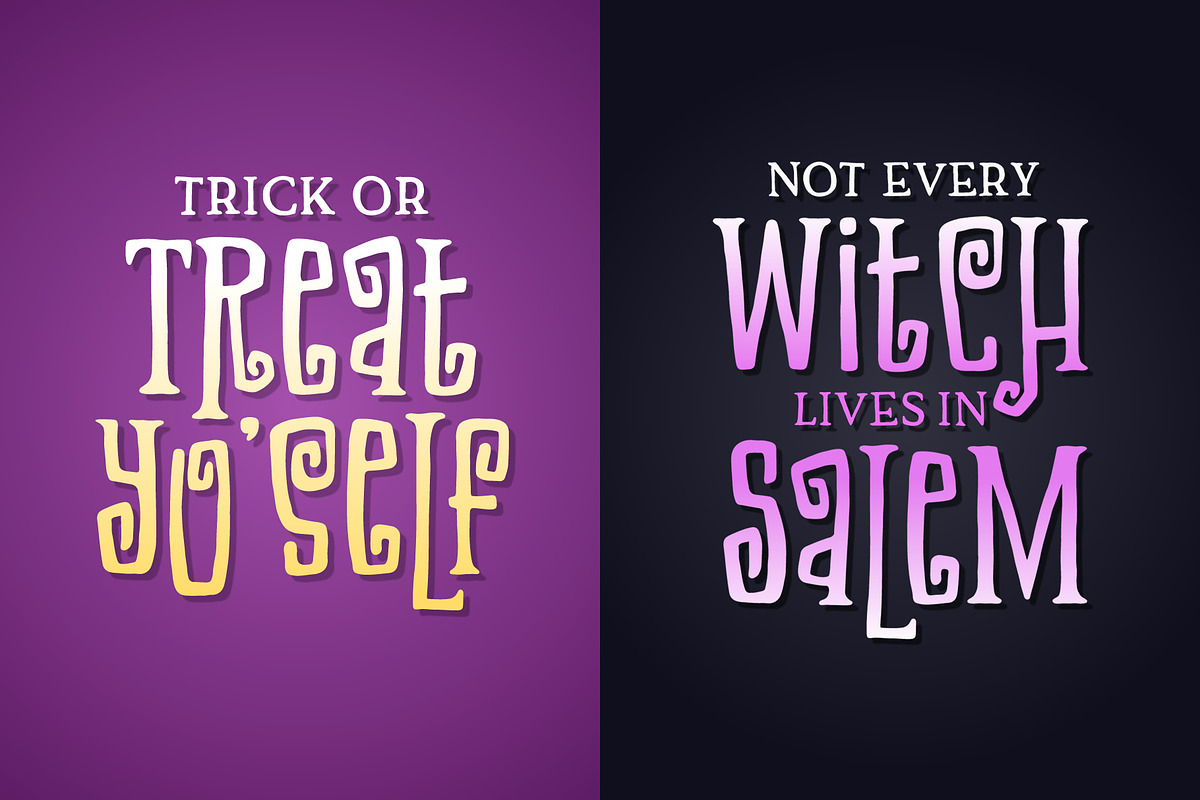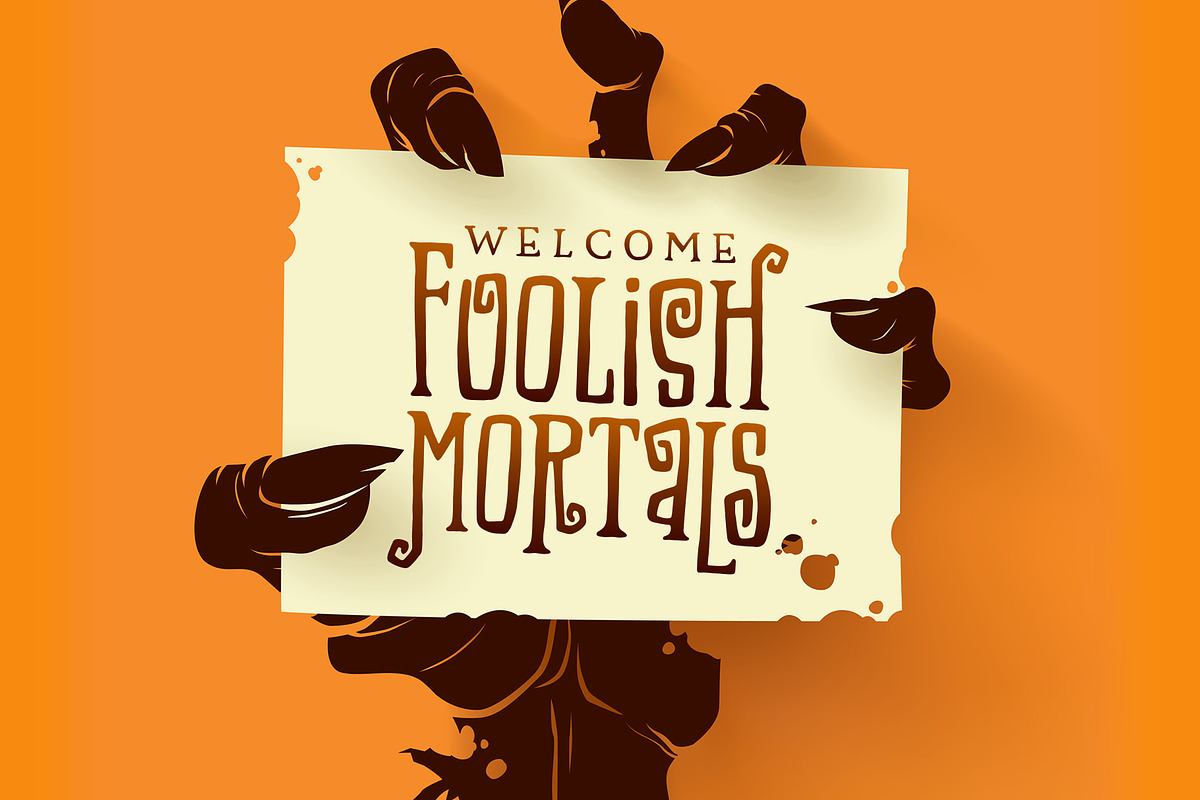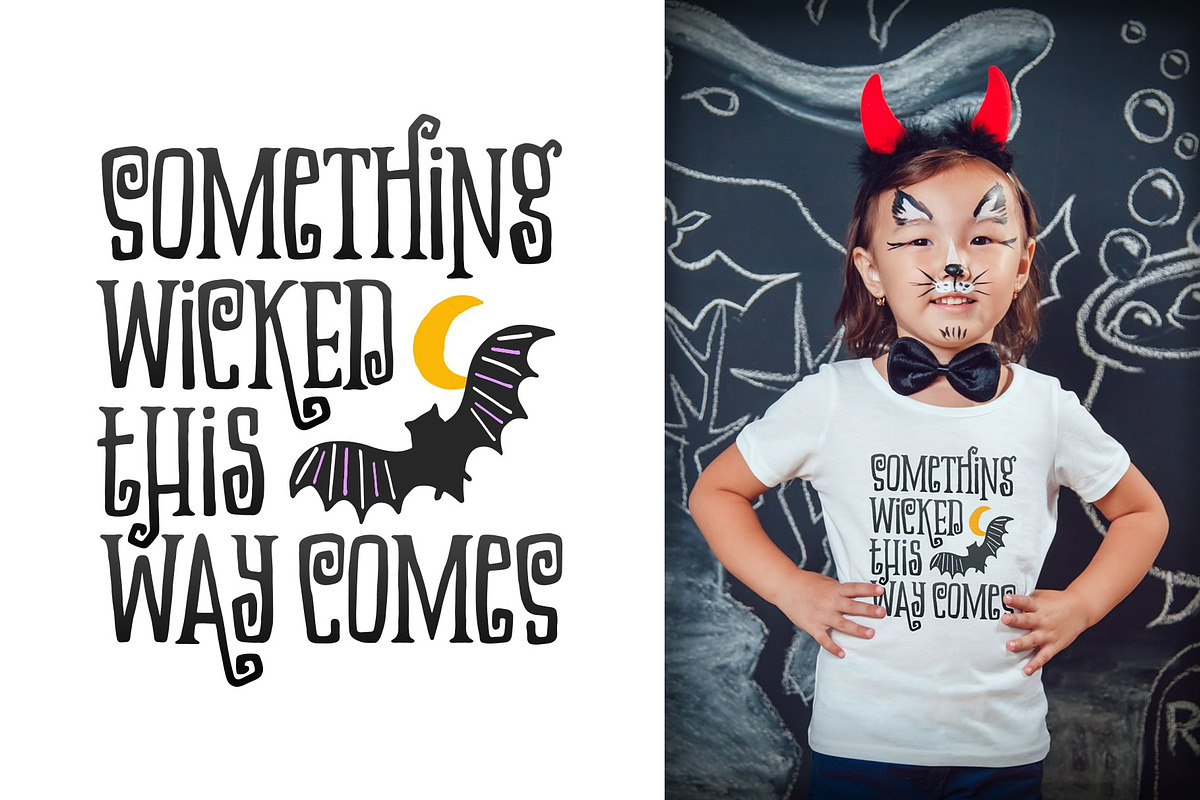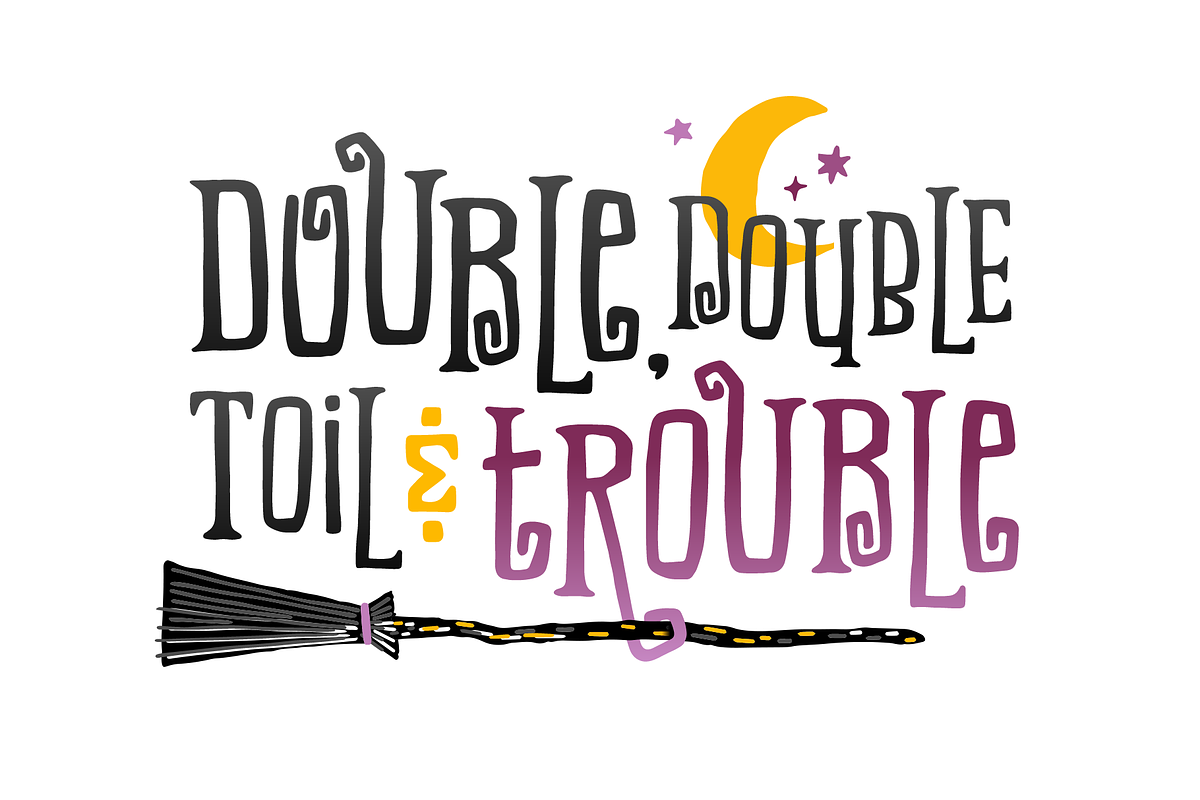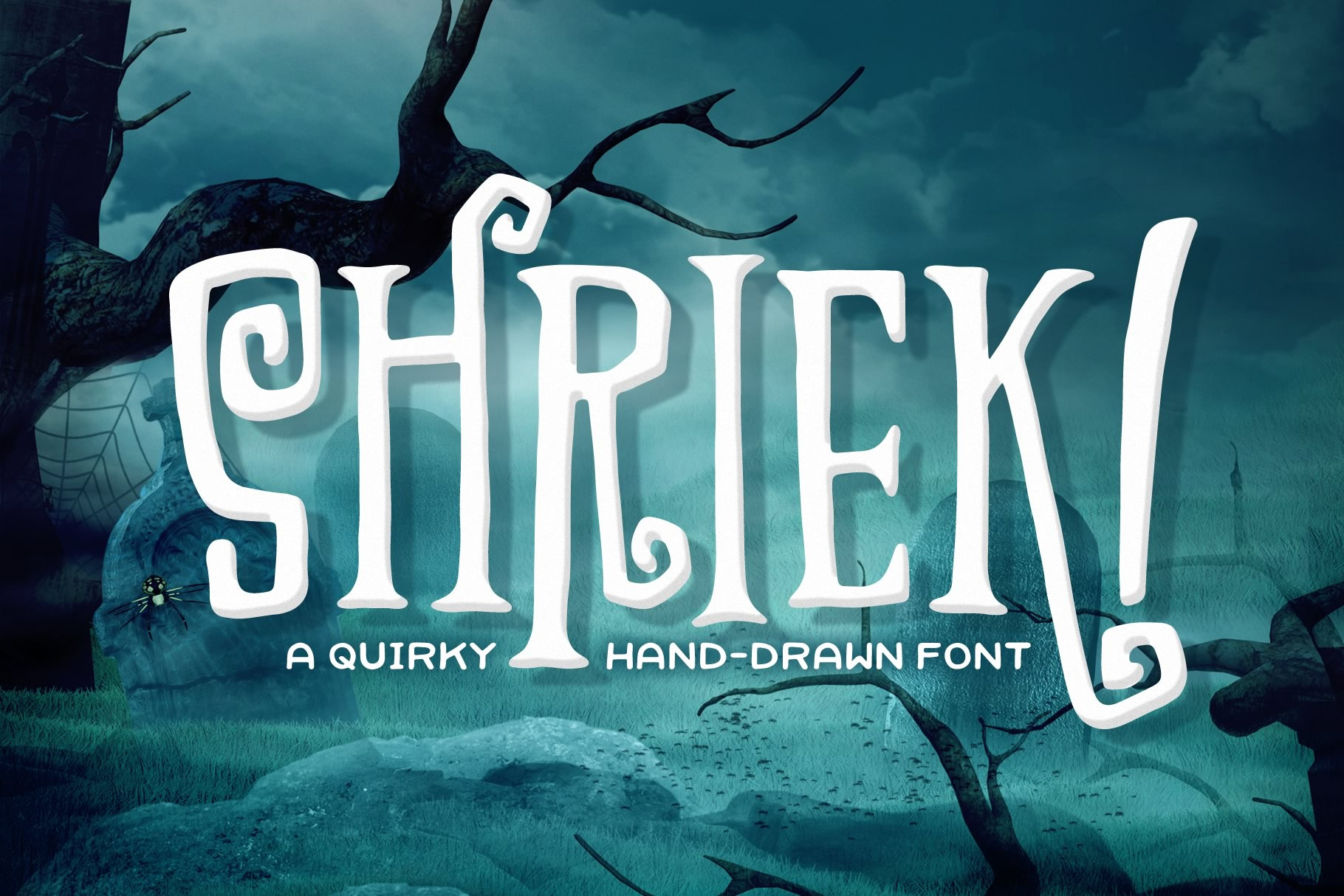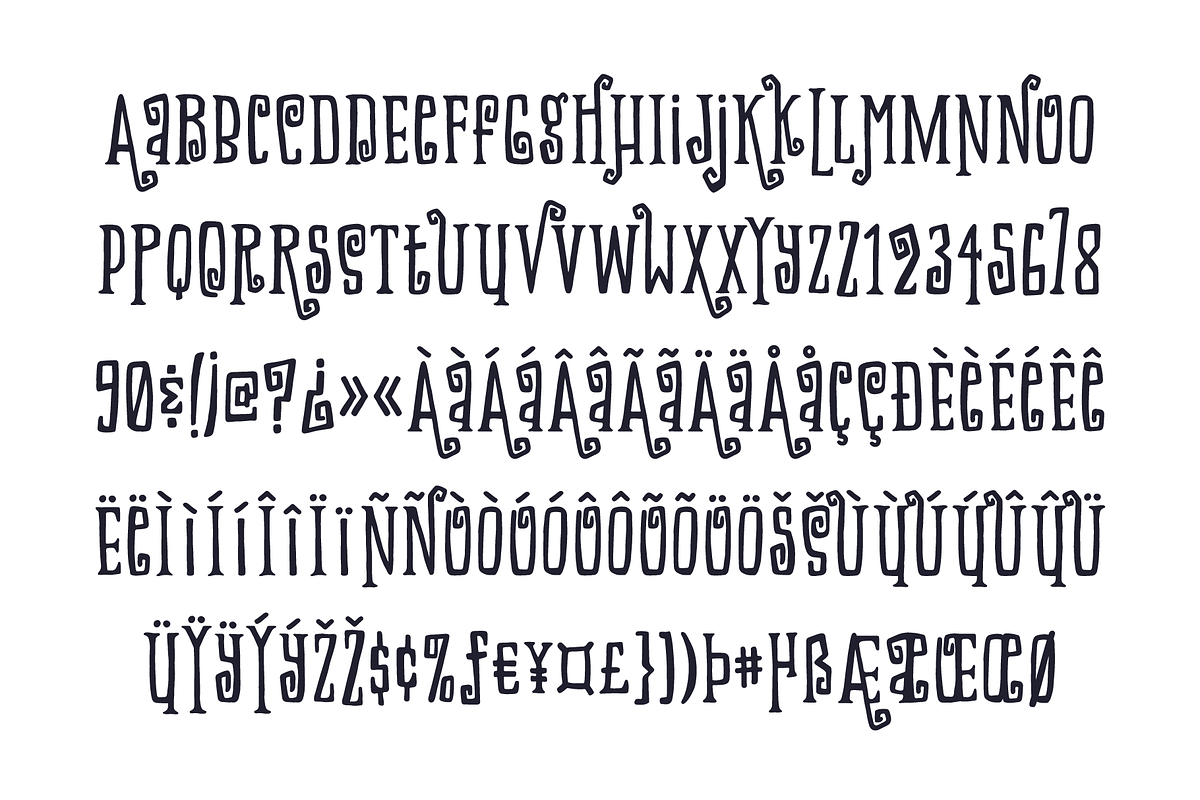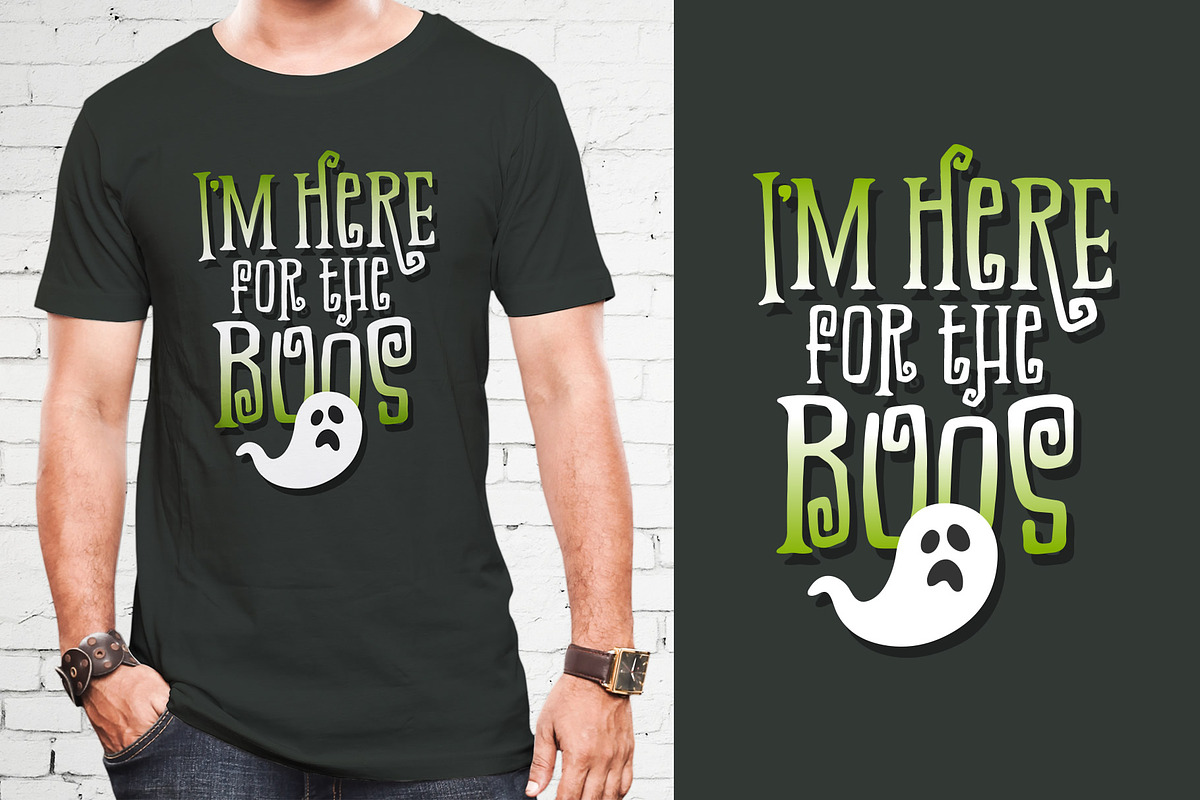
Shriek! Font
Shriek! font just screams Halloween fun! This curly, hand-drawn font is perfect for all of your Halloween projects: shirts, signs, invitations, etc. Or anytime you need something a little quirky.